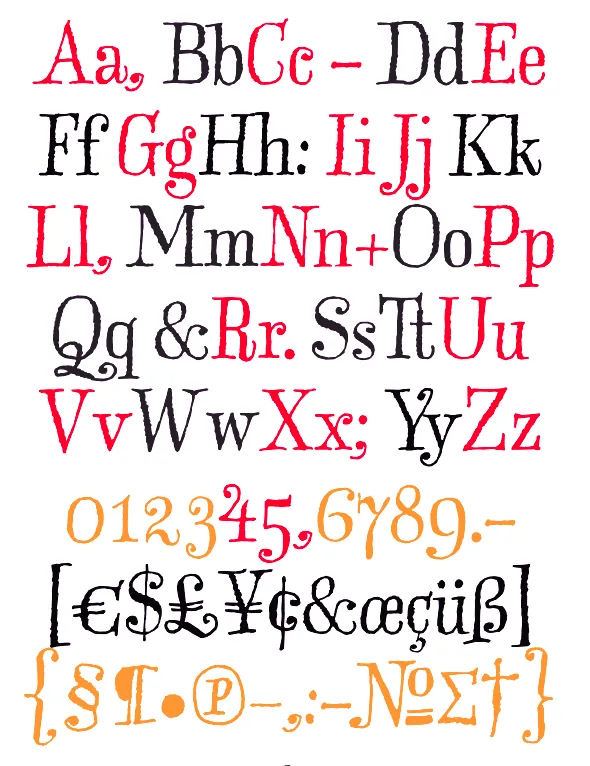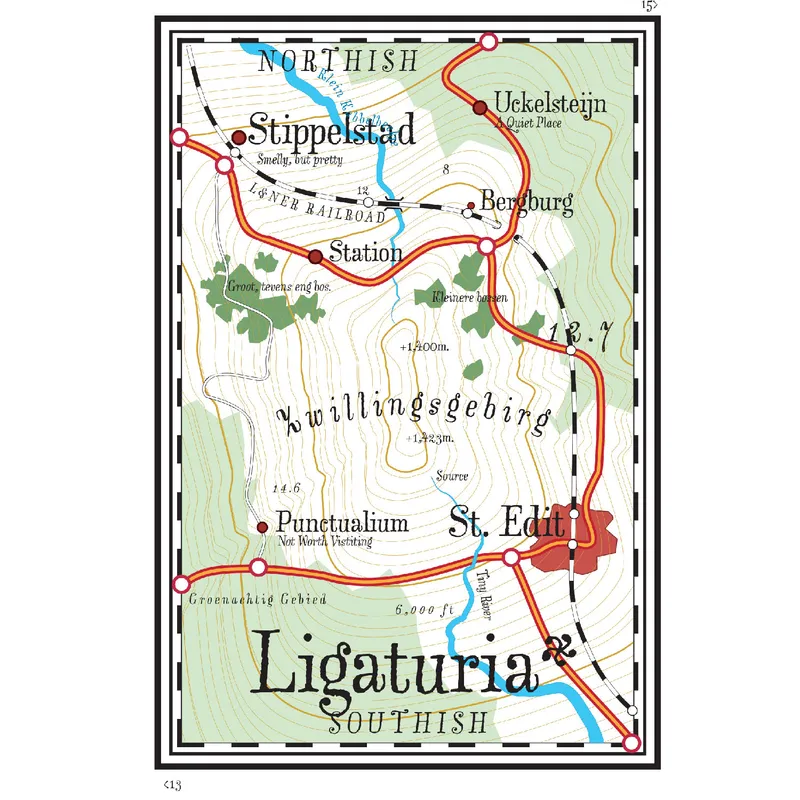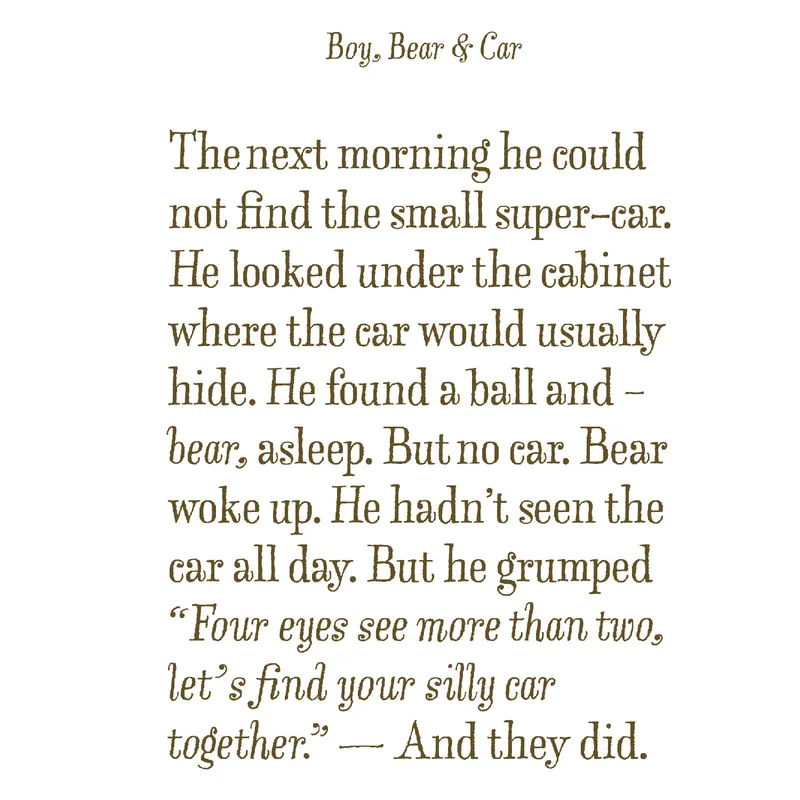
Archived: LTR Salmiak
Years ago when the internet was still being invented and not so much evil, LettError had a small online store. It was the cutest little shop with hand drawn buttons, a hand drawn front page and hand written html. It was before WordPress and definitely before CSS. Not many people visited the store because very few people knew where to look for it. It wasn’t on Google maps. It wasn’t on Google. In fact, it may have been before Google woke up.
Just so that there would be something to sell in the shop, LettError drew a cute handdrawn Roman and matching Italic. Proper markers on paper. Using antique programs named Photoshop 1.0 and Fontographer 3, it was drawn with love. LettError’s mom bought the first copy and continued to use it for years, bless her.
Years rushed past like a cartoon whirlwind. New font formats were invented left and right and Salmiak was forgotten. It didn’t have any of those shiny new features like the new fonts on the block. It was actually quite content, sitting on its own shelf, staring out of the shop window and watch jet planes overtake the pterodactyls.
Promotional images, 2001. Some will point out these shapes foreshadow the designs that were to follow. For better or worse that is true.
- 2001 Release. The world had other things on its mind.
- 2013 A re-release as OpenType. The world still did not care much.